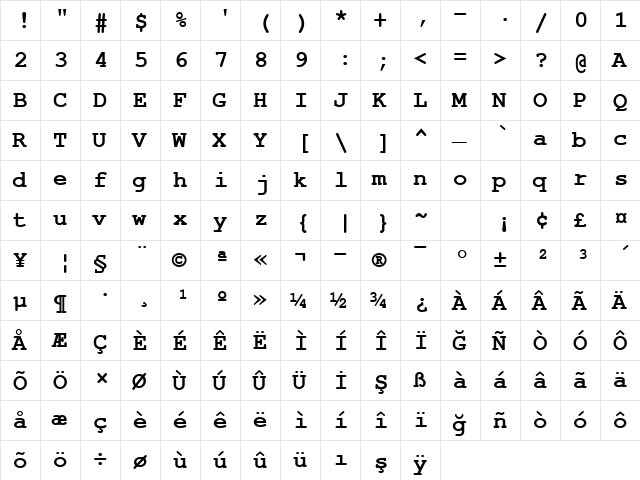
NimbusMonLTU Bold Font Preview
NimbusMonLTU Bold
NimbusMonLTU Bold Font Details
Design Context for NimbusMonLTU Typeface
NimbusMonLTU offers clean, dependable letterforms without strong stylistic allegiance, making it a practical choice for designers who need flexibility. The heavy weight commands attention and anchors typographic hierarchies.